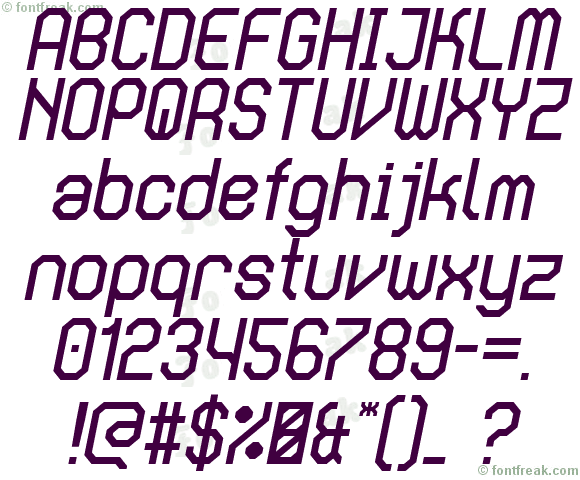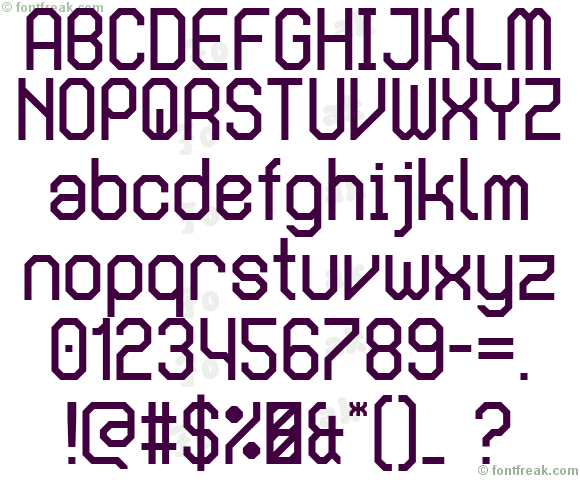
Eightgon
Eightgon Italic
The Eightgon font by GGBot is a striking display typeface that stands out for its unique geometric design and modern aesthetic. As a sans-serif font, it features a clean and contemporary look characterized by its bold stroke weight and angular forms. The letters exhibit a consistent width, providing a uniform appearance that enhances readability while maintaining a stylish flair. The spacing between characters is meticulously crafted, allowing for optimal legibility both in digital and print formats.
Eightgon is particularly suitable for a variety of creative applications. Its distinctive style makes it an excellent choice for attention-grabbing movie posters, where a bold statement is essential. Additionally, this font works beautifully for branding small businesses, especially in industries like tech or design, where a modern touch is desired. It can also enhance restaurant menus, giving them a contemporary feel that resonates with a younger audience. Furthermore, content creators looking to add a unique flair to their social media graphics will find Eightgon to be a perfect fit for eye-catching headlines and promotional materials.
What sets the Eightgon font apart is its ability to merge functionality with style. Its geometric precision and bold character lend an air of modernity, while its versatility ensures it can be adapted for various design needs. For those interested in exploring this unique typeface, the Eightgon font free download presents an opportunity to enhance their creative toolkit.